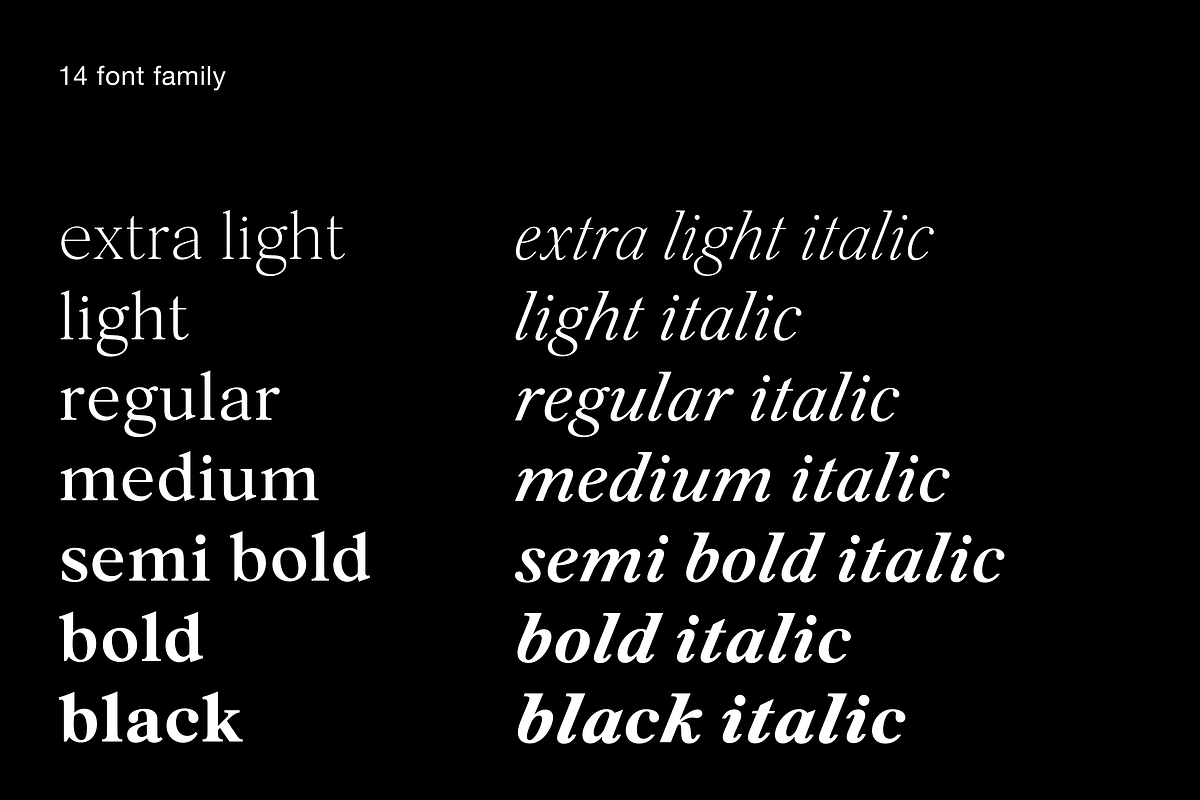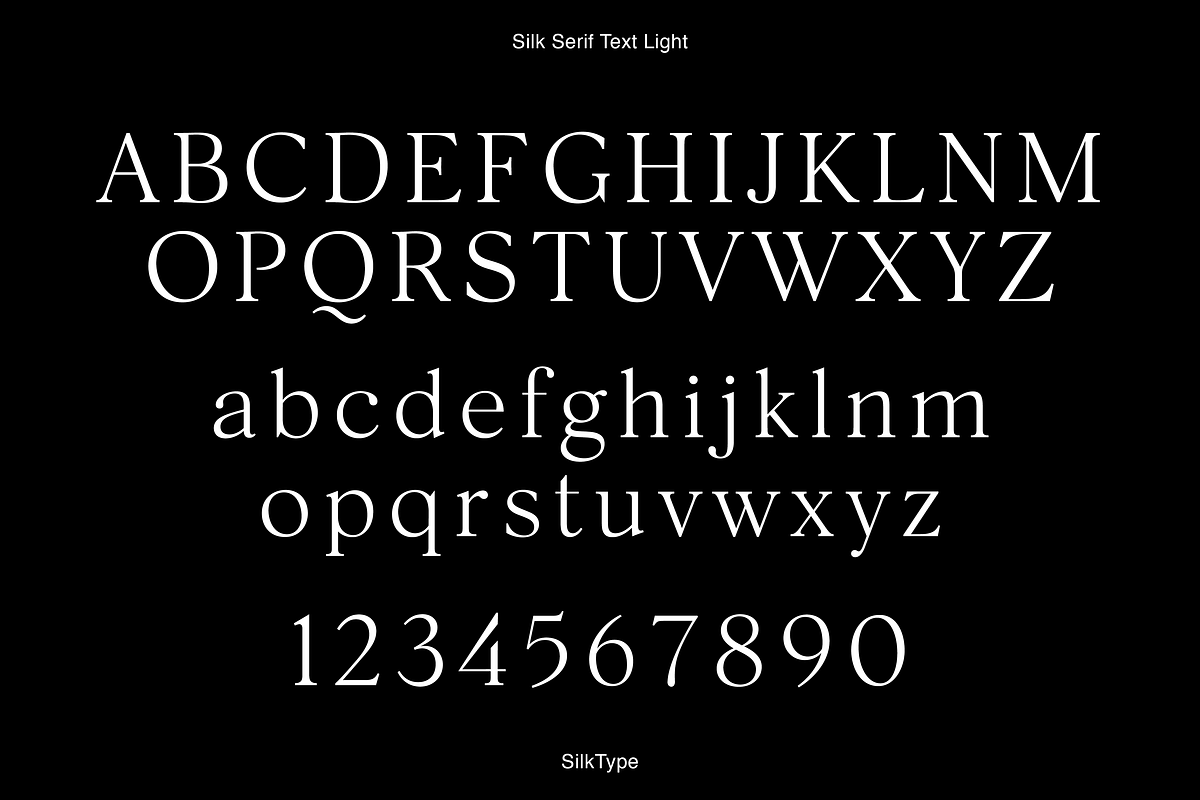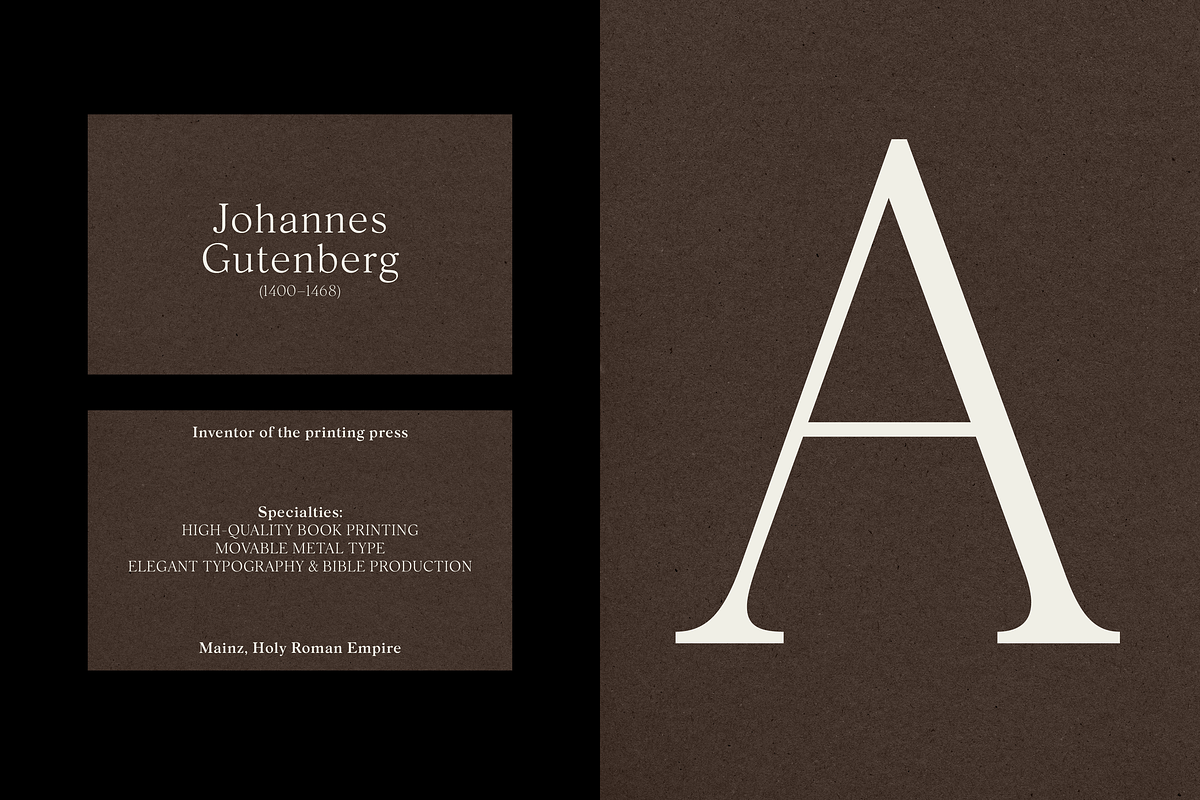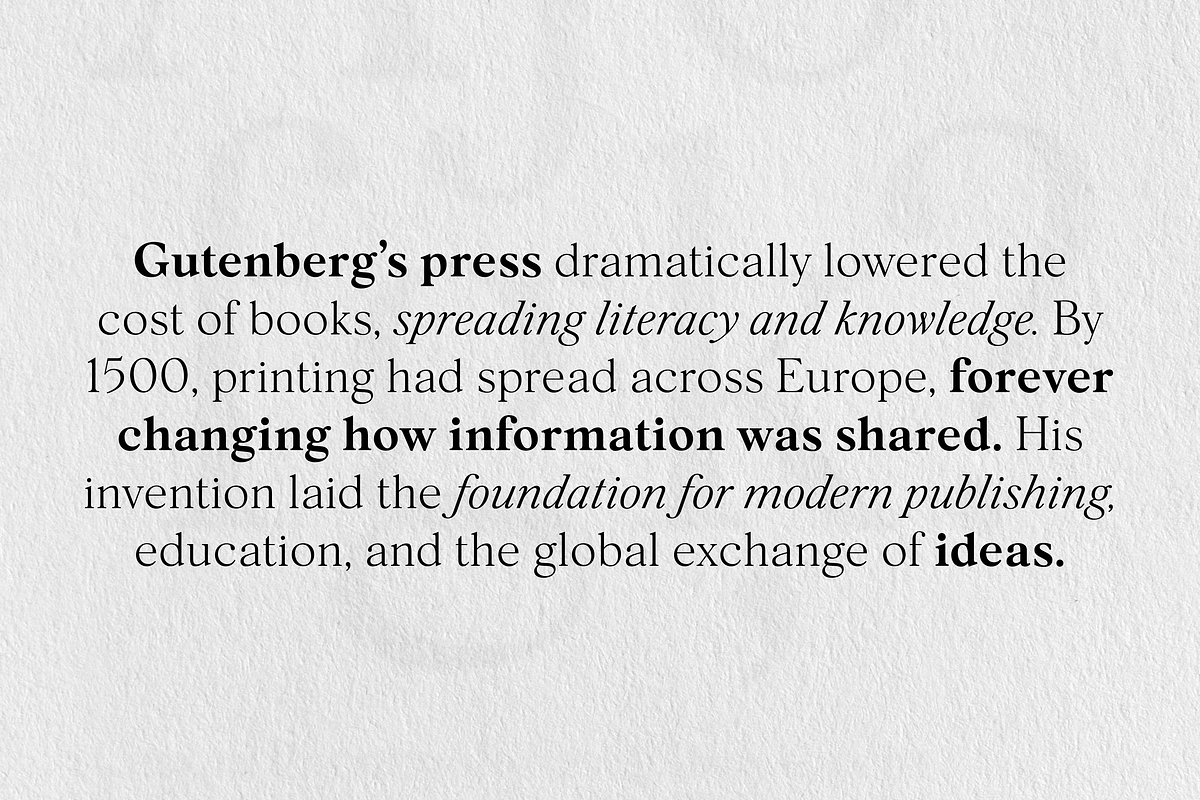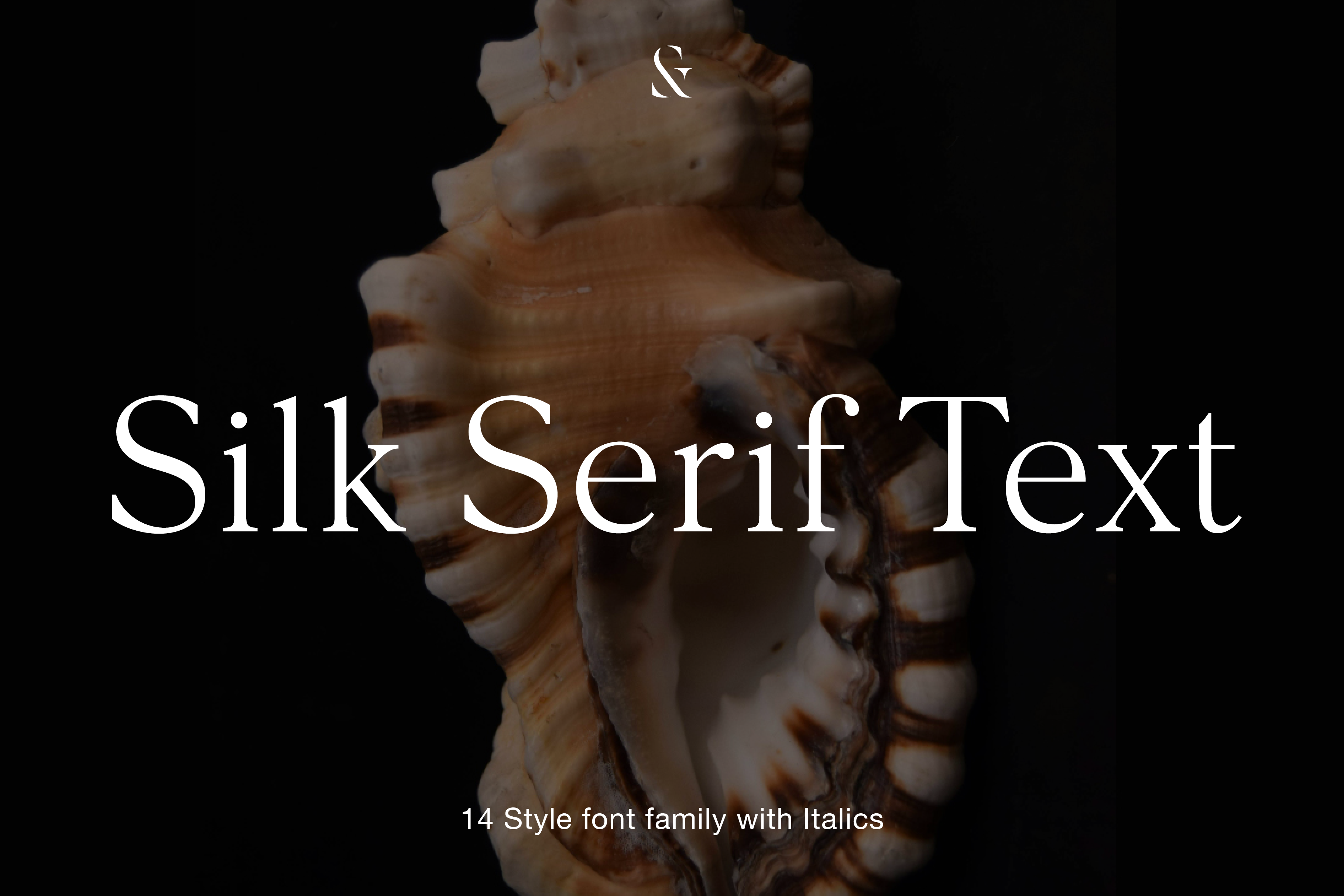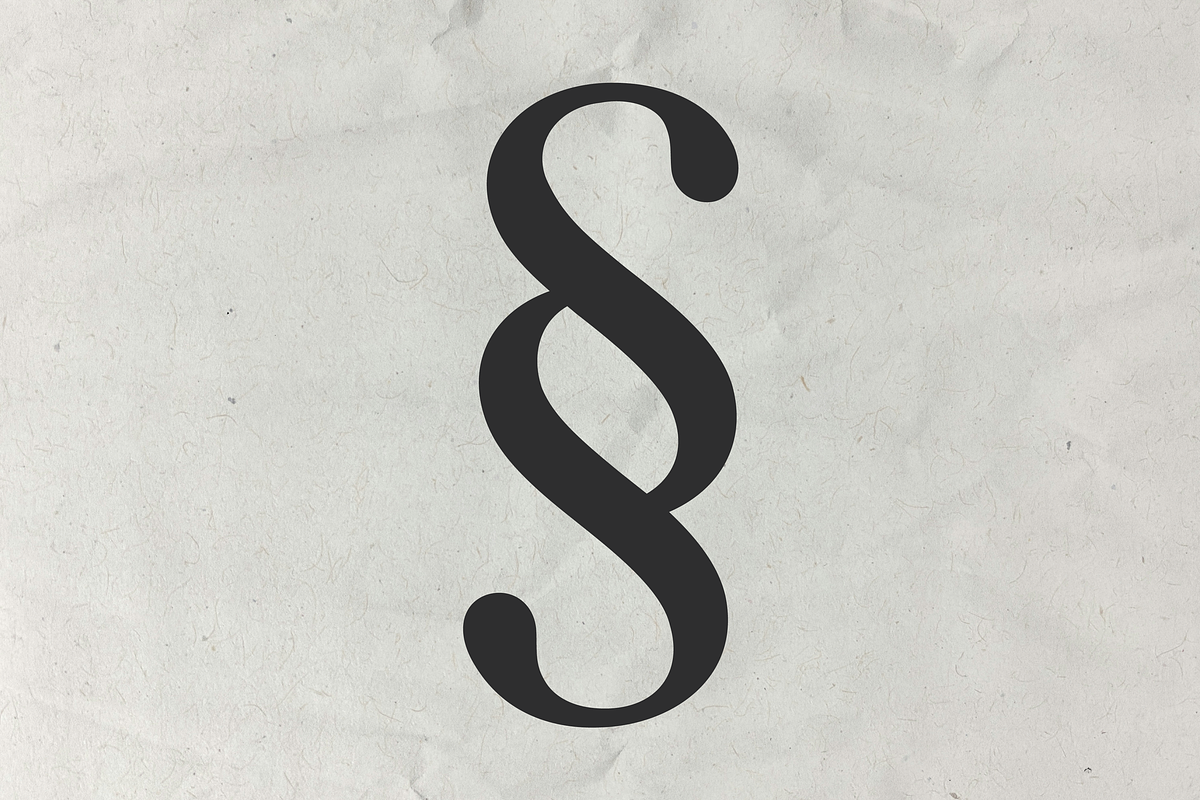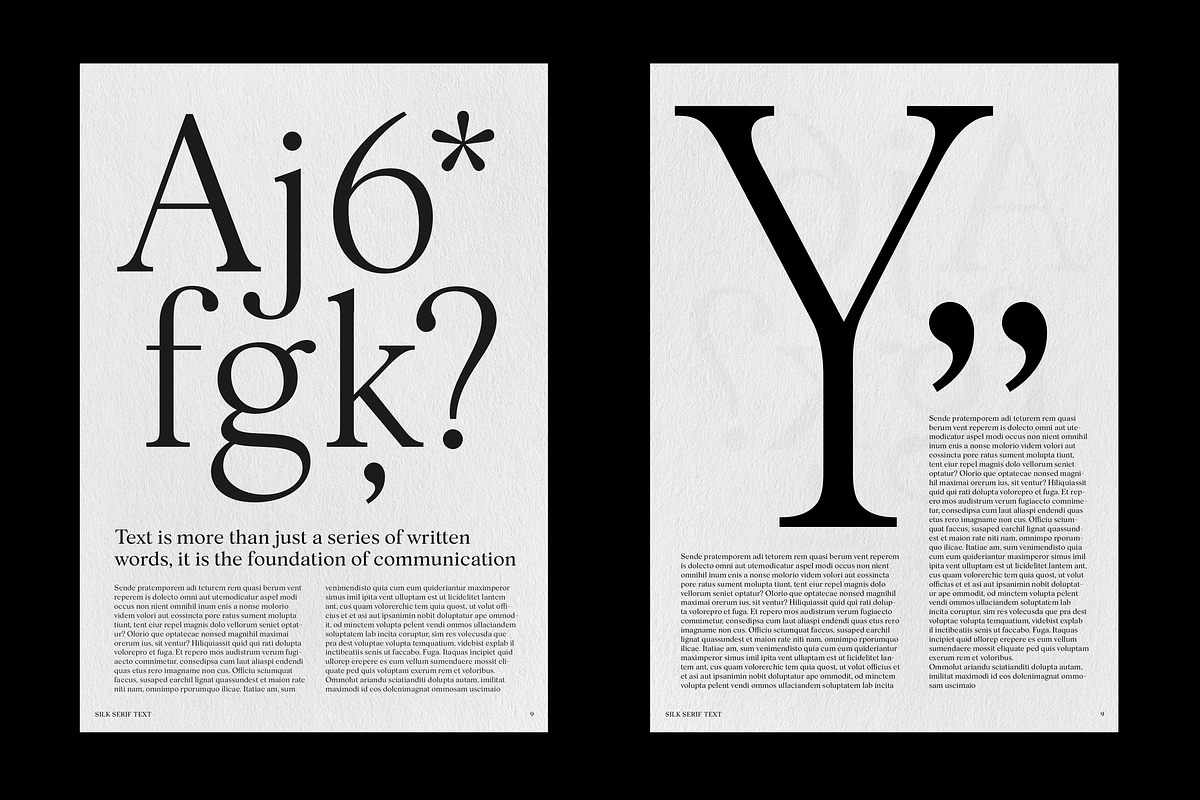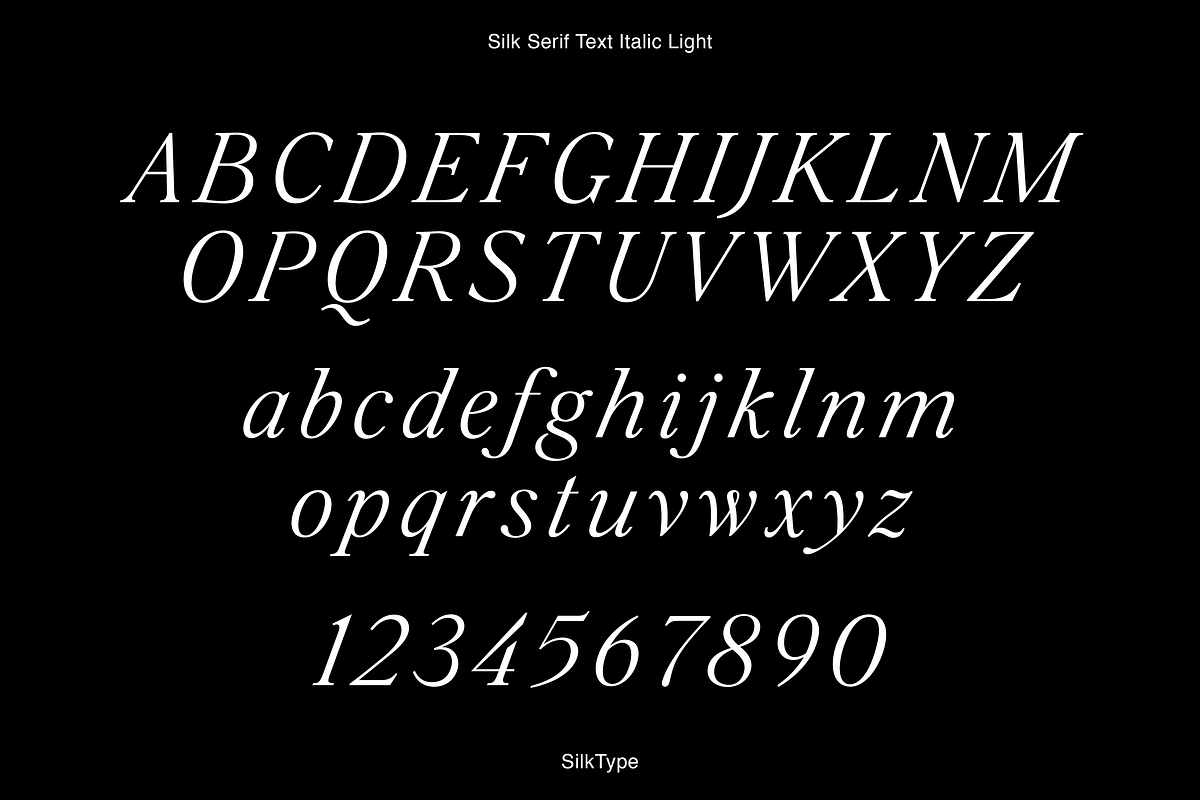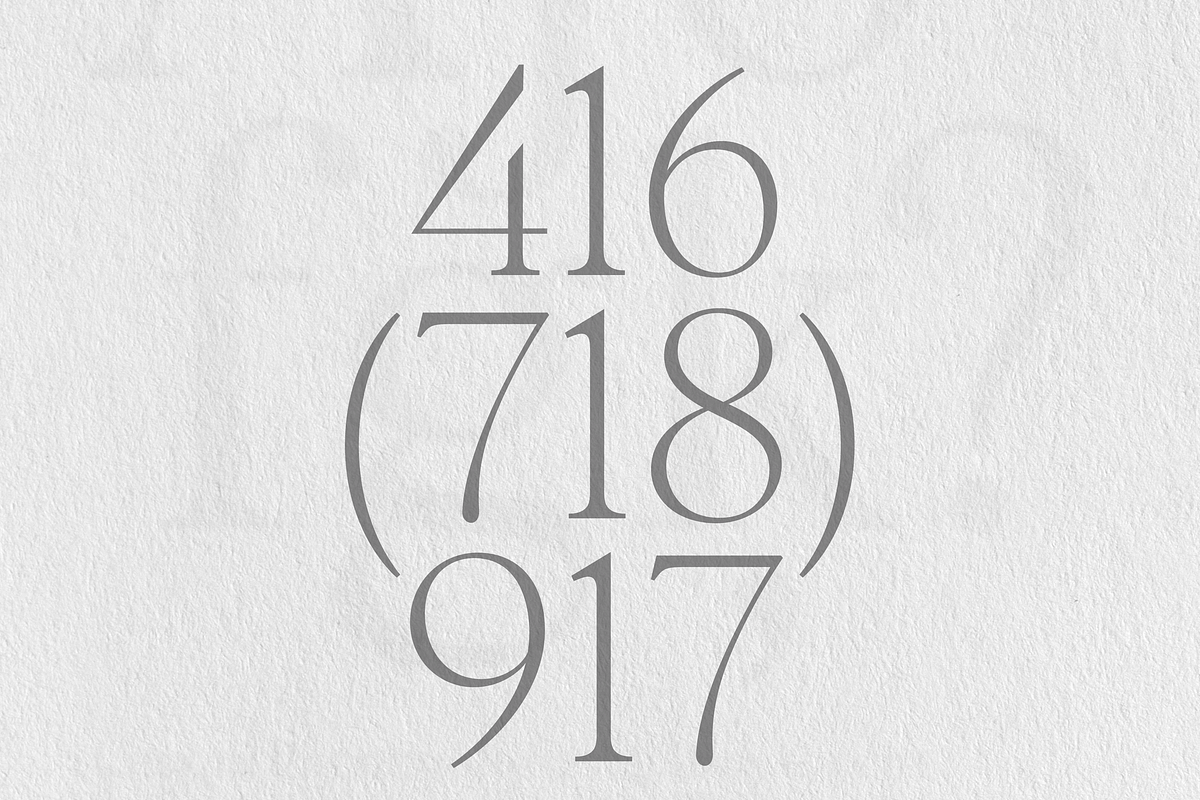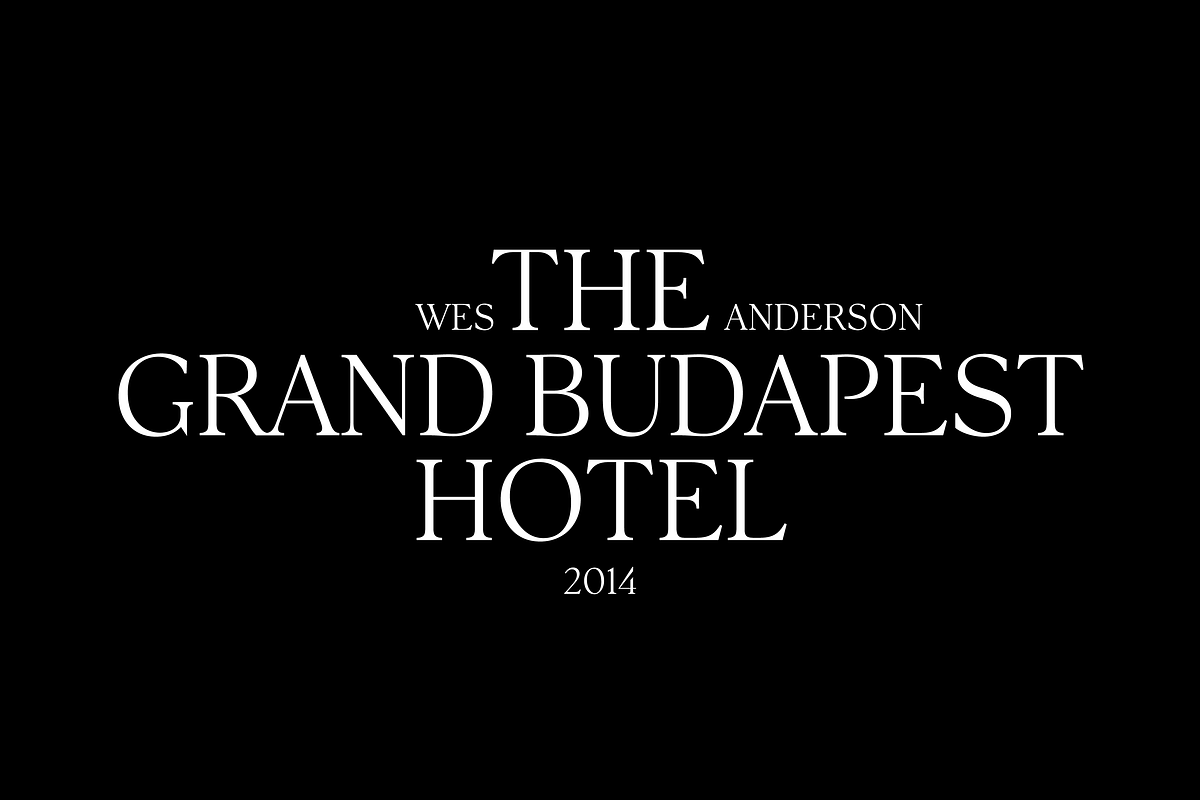
Silk Serif Text - 14 Font Family
Silk Serif Text is an extension of Silk Serif, designed specifically for smaller text sizes while maintaining the elegance and sophistication of the original. With adjusted proportions, lower contrast, and improved spacing, Silk Serif Text ensures optimal readability in captions, body text, and long-form content.
Designed to work effortlessly with Silk Serif, this version brings the same refined aesthetic to editorial layouts, branding, and print materials, where clarity and legibility matter. Whether used on its own or alongside Silk Serif, it creates a well-balanced typographic system for designers who want both style and function.
Silk Serif Text is available in 14 styles—both Roman and Italic, ranging from Extra Light to Black. It supports Western, Central, and South Eastern European languages, ensuring versatility across a wide range of projects.